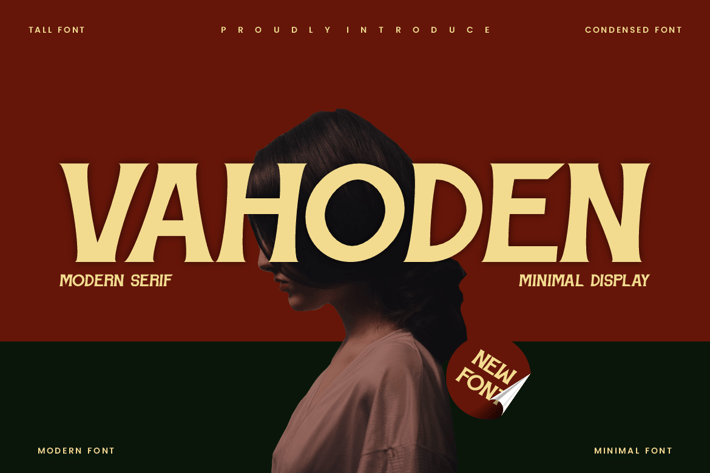
Vahoden - Modern Minimal Font
Vahoden Font is unique . Ready to use for your design like labeling, movie sceen, poster, movie title, gigs, album covers, logos, and much more.